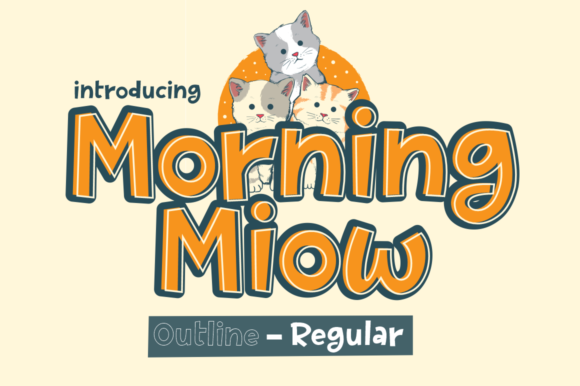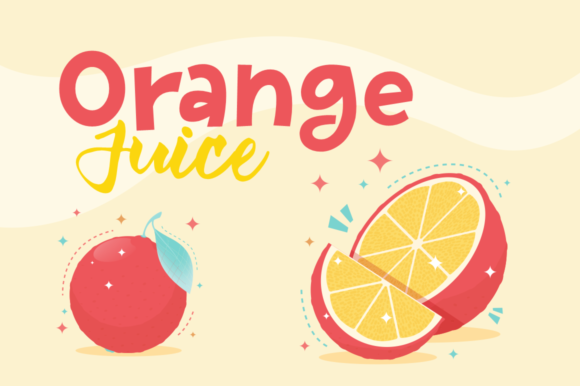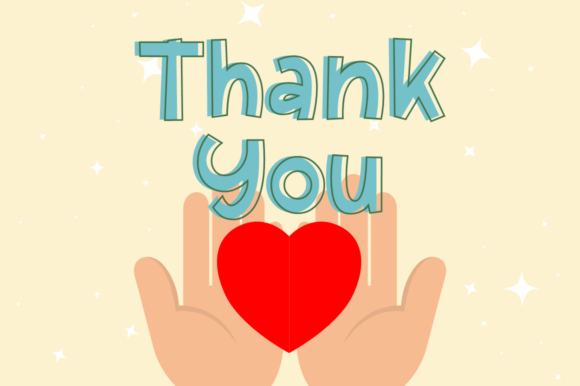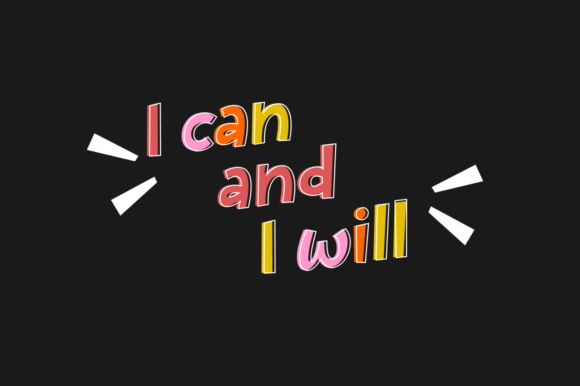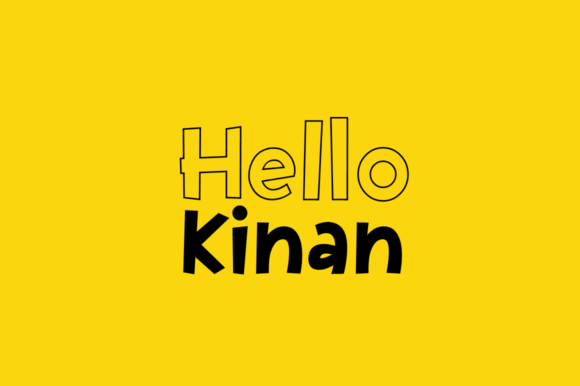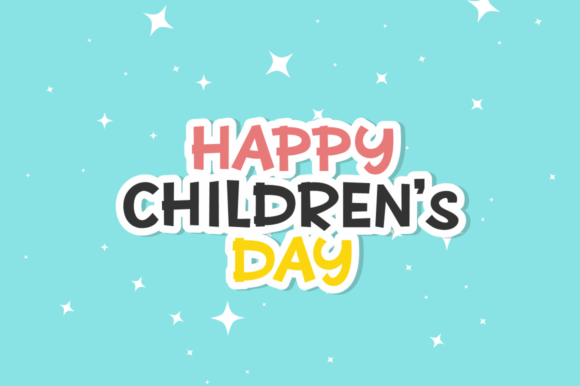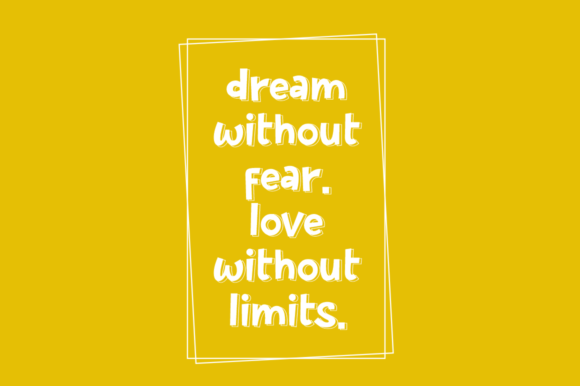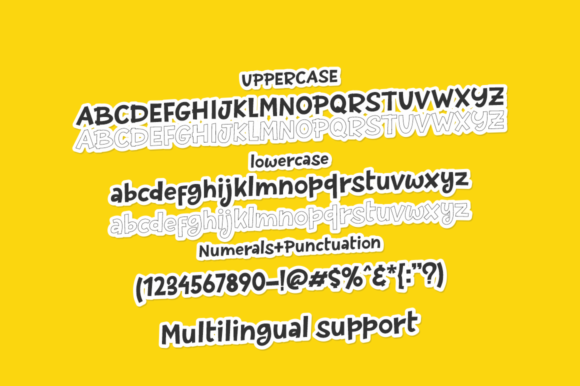
About Morning Miow Font
Morning Miow is a cute display font. A little bit quirky, this font looks incredibly adept on a wide variety of contexts!This font is PUA encoded which means you can access all of the glyphs and swashes with ease!